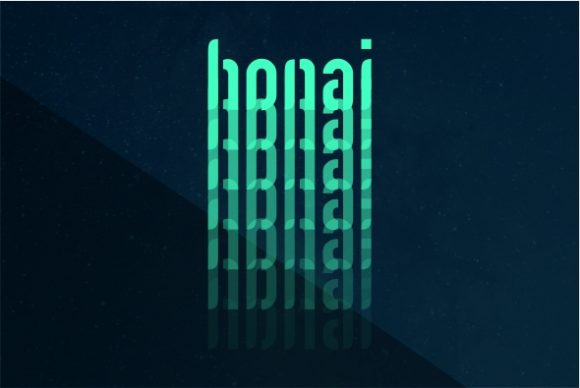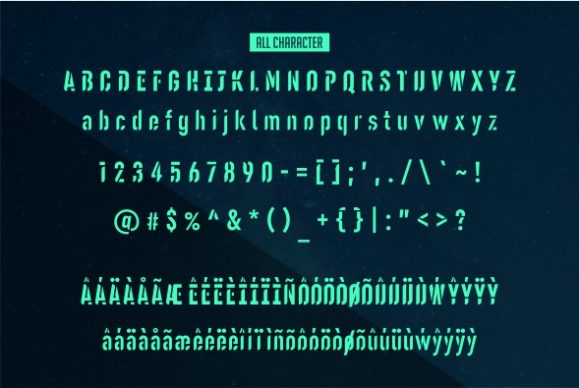
Introduction to Honai Font
You know that moment when you’re brainstorming for a creative project and the perfect font just clicks into place? It’s like a missing piece of a puzzle has finally fallen into place, and your entire design starts to shine. For designers, finding the right font can be a game-changer – it’s what turns a good idea into a truly great one.
That’s exactly what the Honai Font does. With its fun, quirky, and authentic vibe, it’s the perfect design resource for anyone looking to add a touch of personality to their work. Whether you’re working on a branding project, a social media campaign, or simply a fun design for a friend, Honai Font is sure to elevate your creative output.
Key Features of Honai Font
• High-quality font design with a transparent background, ideal for creative projects that require a unique aesthetic.
• Unique characteristics include its elegant and minimalist design, making it perfect for branding, logos, and typography-based designs.
• Supports a wide range of languages, including Latin, Cyrillic, and Greek, making it a versatile design resource.
Honest Review: Honai Font
I recently stumbled upon the Honai Font, and I must say, it’s a wonderful addition to any design project. With its clean lines and elegant aesthetic, it’s perfect for creating a professional and modern look. The free download was a major plus, making it accessible to designers of all levels.
Here are some things that work well with the Honai Font:
• High-quality design that’s perfect for creative projects
• Transparent background makes it easy to layer with other design elements
• Wide range of font sizes and styles to choose from
• Some of the font styles may not be suitable for all types of projects
• The lack of bold font options may limit its use in certain situations
Overall, I’m impressed with the Honai Font. Its versatility and high quality make it a valuable addition to any design arsenal. With a little creativity, it’s easy to see how it can be used in a variety of design projects, from logos to infographics. If you’re looking for a reliable design resource, the Honai Font is definitely worth checking out. ✨
The Honai Font is perfect for a variety of design projects, including business cards, brochures, and social media graphics. Its elegant design and transparent background make it a versatile design resource for any creative project.